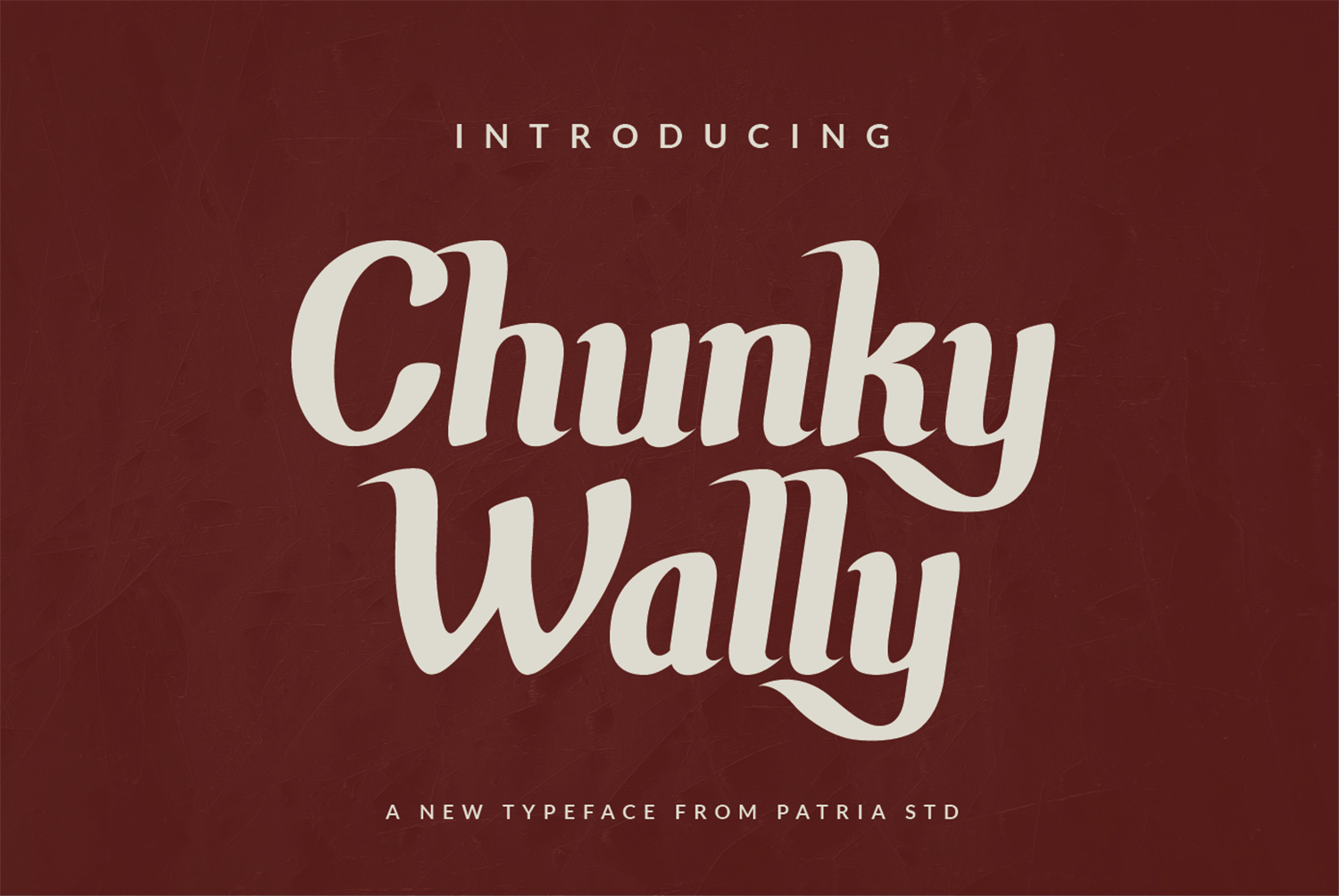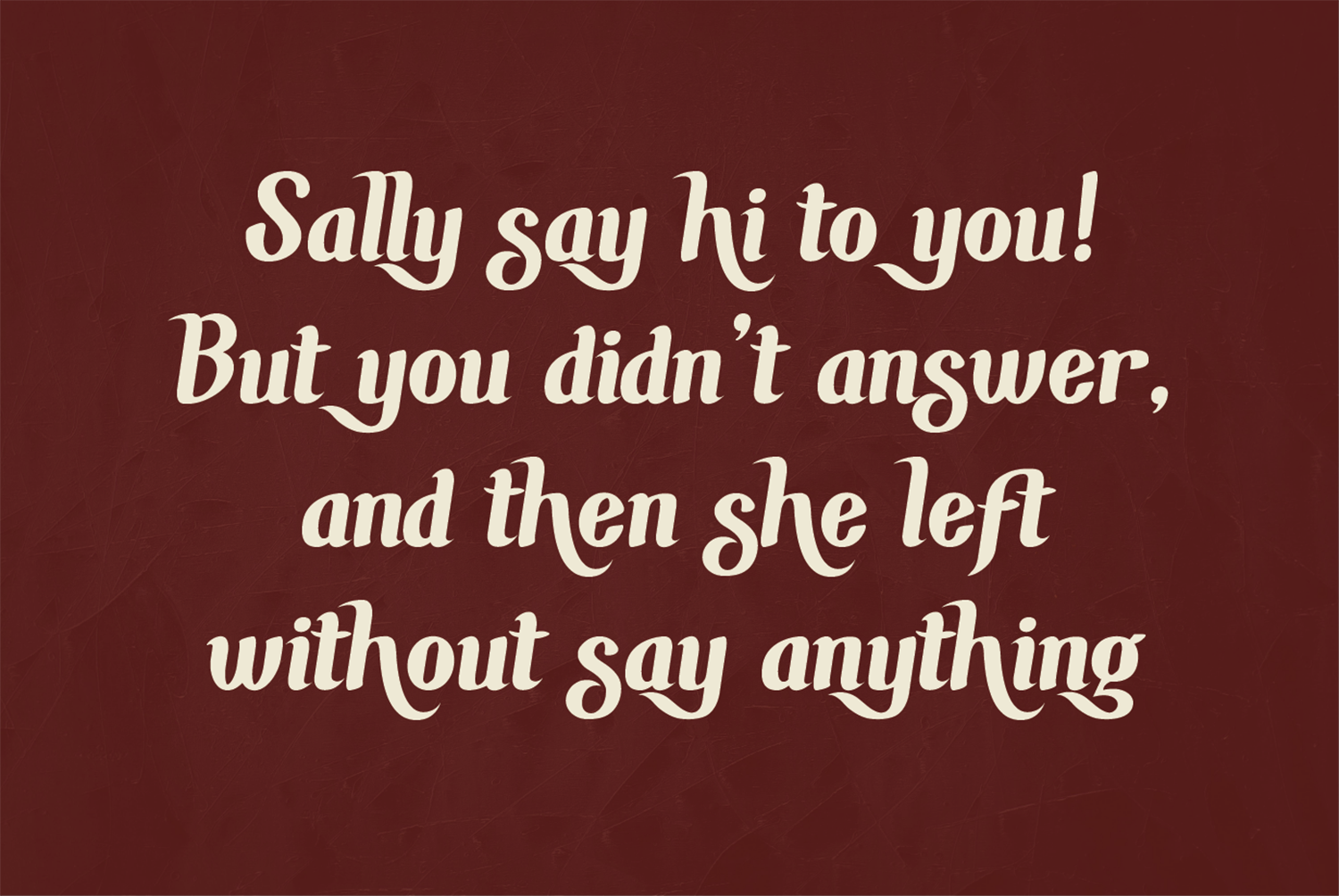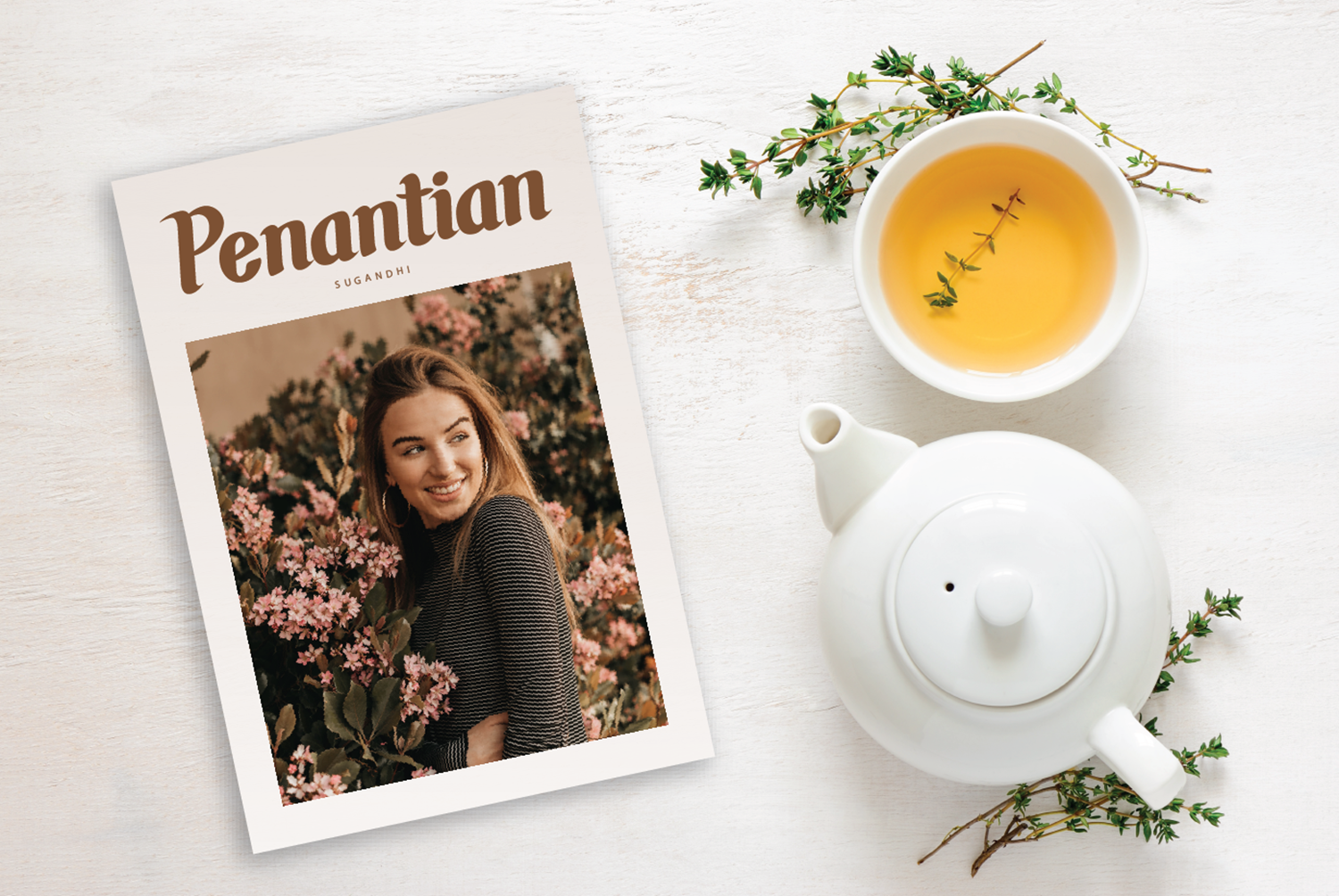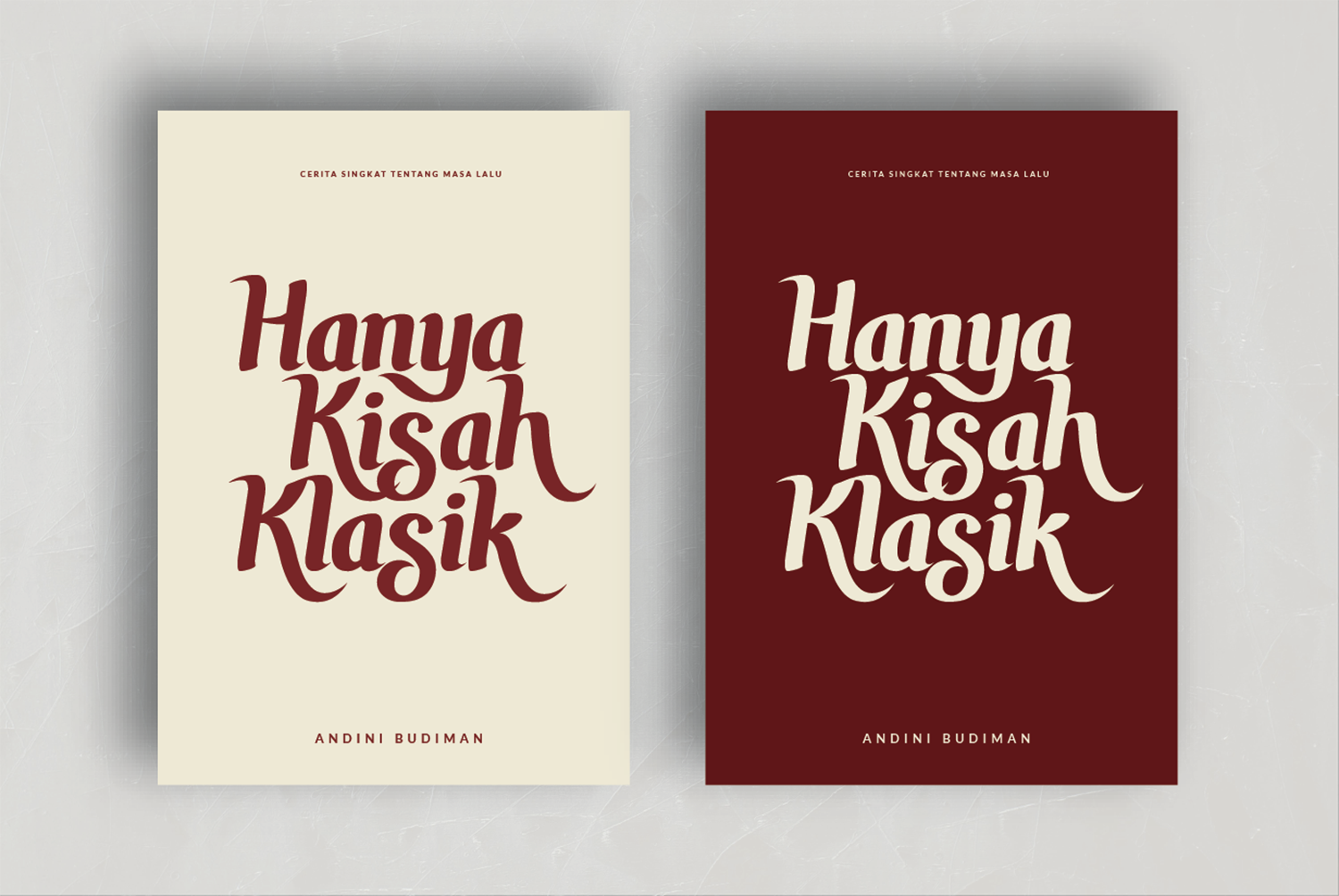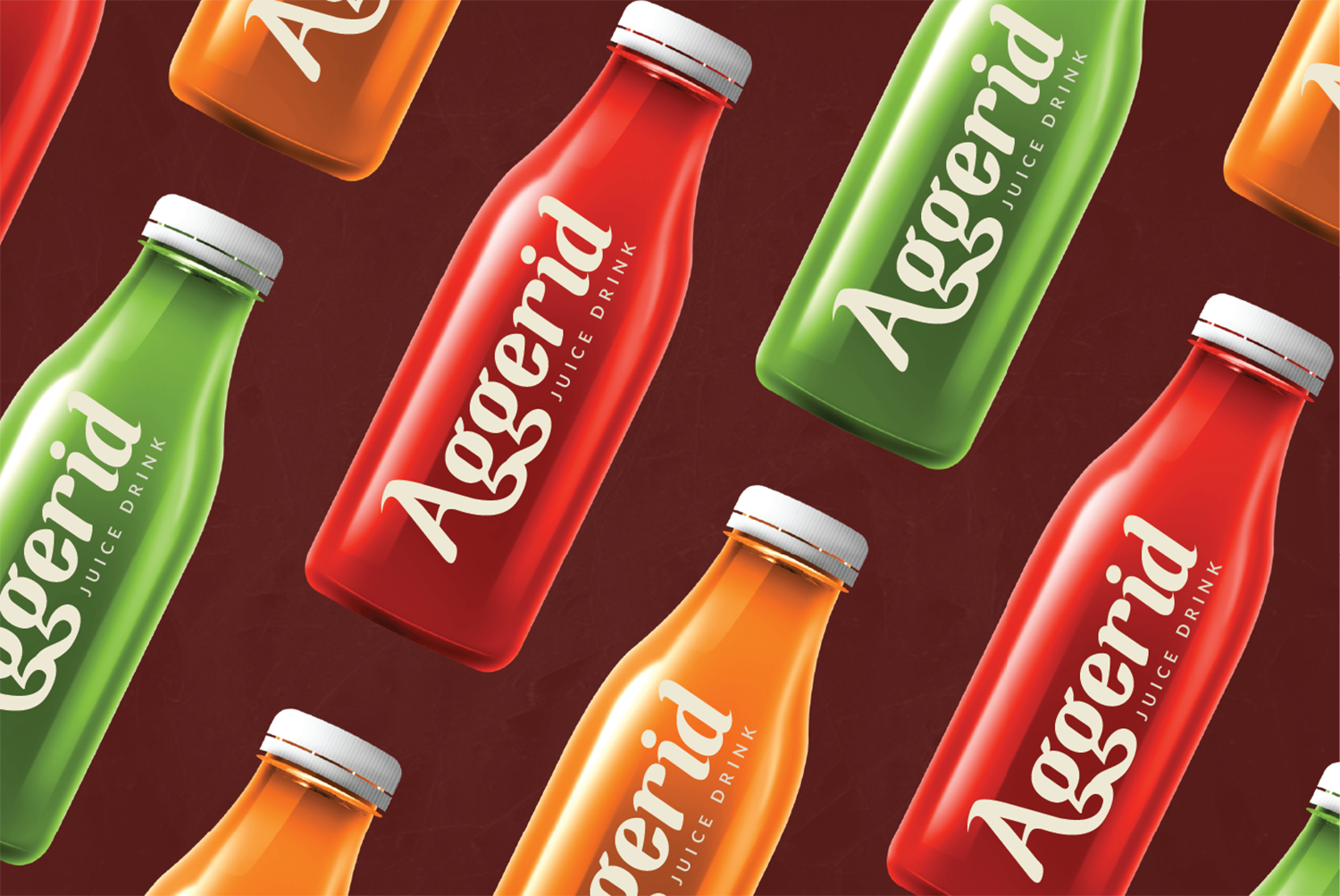
Chunky Wally Free Font
Chunky Wally Free Font is a stylish handwritten font that has an elegant style. This font features a varying baseline, smooth lines, gorgeous glyphs, and stunning alternates and will help you create unique design projects and enhance your professional level. Use this font to create memorable posters, wedding invitations, cards, branding, flyers, and more. Improve the quality and increase the popularity of your design projects using this font. If you like it don’t forget to check out the full version.
Author: Patria Ari Wijonarko